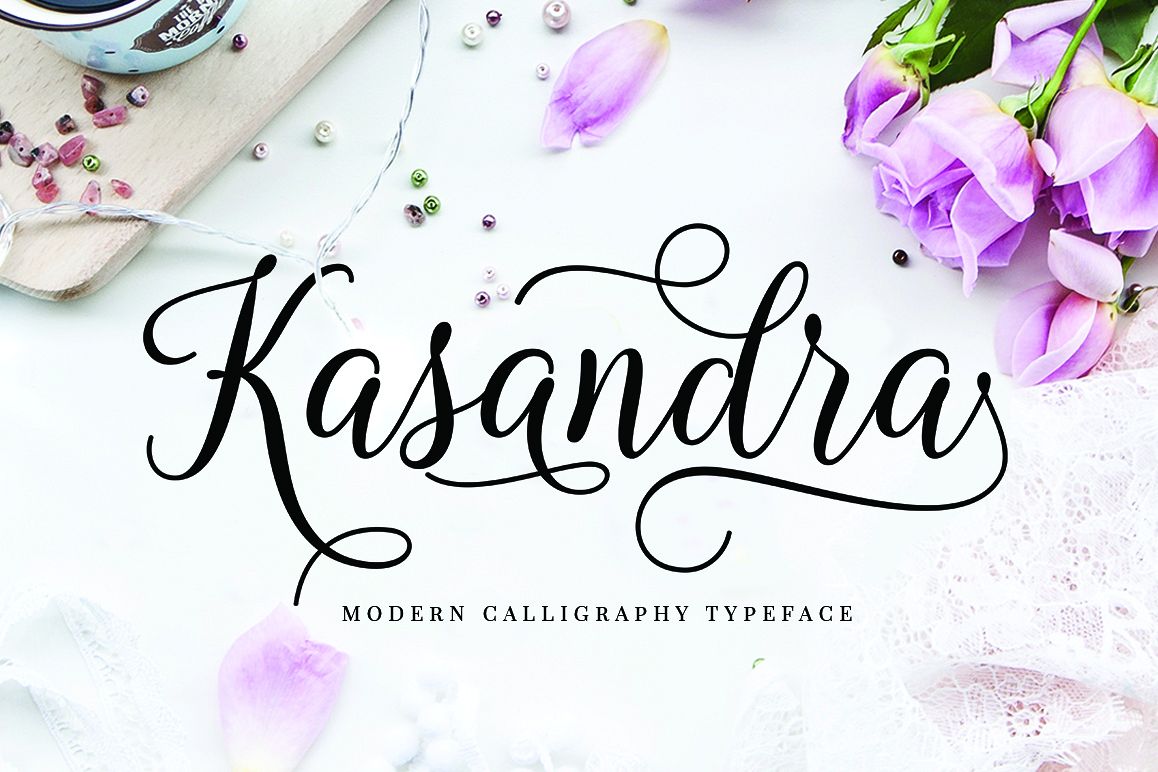
Kasandra Script
Kasandra Script is a modern calligraphy font that features a varying baseline, smooth line, classic and elegant touch. Can be used for various purposes.such as headings, signature, logos, wedding invitation, t-shirt, letterhead, signage, lable, news, posters, badges etc.
Kasandra Script features 460+ glyphs and 244 alternate characters. including initial and terminal letters, alternates, ligatures and multiple language support.Files included:• Kasandra Script .otf• Kasandra Script .ttfTo enable the OpenType Stylistic alternates, you need a program that supports OpenType features such as Adobe Illustrator CS, Adobe Indesign & CorelDraw X6-X7, Microsoft Word 2010 or later versions.